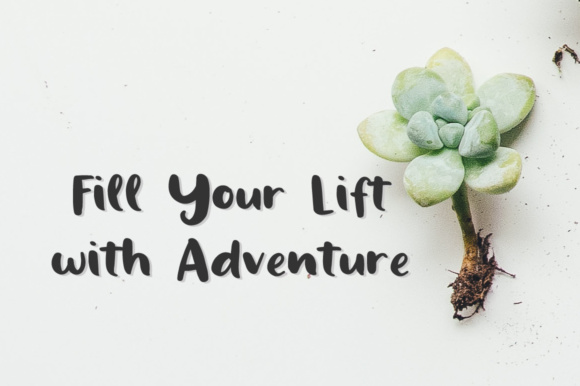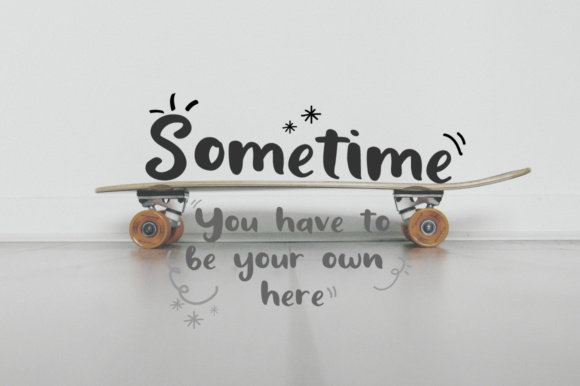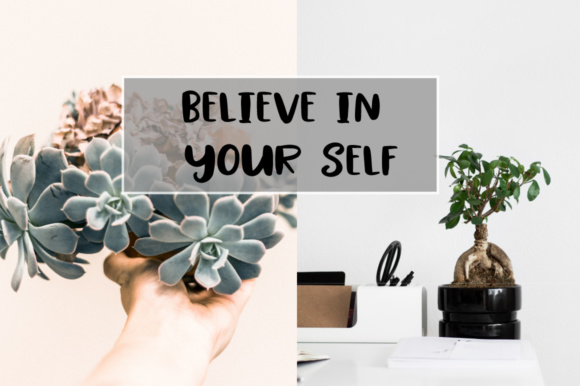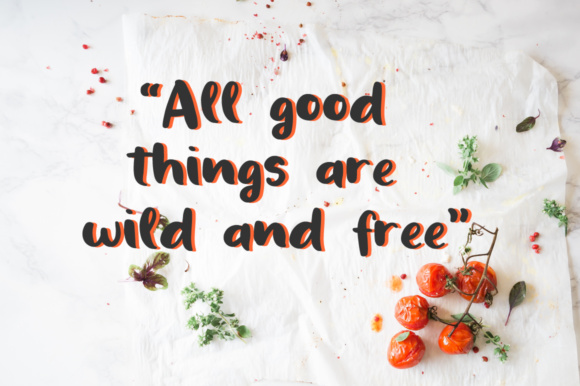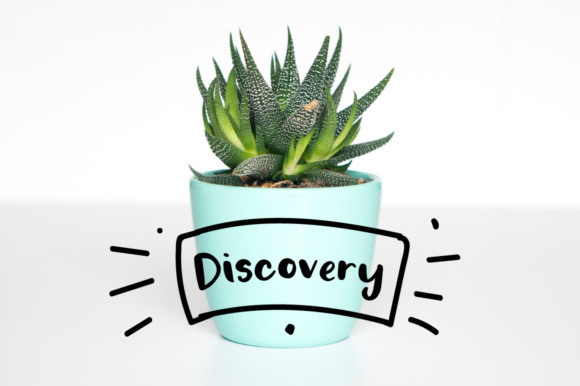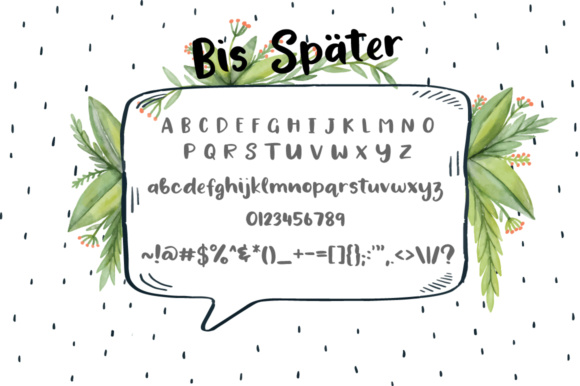
Bis Spater Font: Elevate Your Designs with a Bold, Striking Script
In the world of typography, fonts play a crucial role in making or breaking a design. The right font can elevate your project, making it stand out from the crowd, while a poorly chosen one can leave it languishing in obscurity. For designers and crafters looking for a bold, striking script font, the Bis Spater font is an excellent choice. In this article, we’ll explore what makes Bis Spater a top pick for your design projects.
What is Bis Spater Font?
The Bis Spater is a handwritten script font that exudes confidence and style. Its bold, fluid strokes make it perfect for designs that require a statement piece. Whether you’re working on a branding project, a wedding invitation, or a packaging design, Bis Spater is sure to make an impact.
Key Features of Bis Spater Font
- Handwritten Script: Bis Spater boasts a unique, handwritten script that adds a touch of personality to any design.
- Bold and Striking: The font’s bold strokes ensure that your text doesn’t go unnoticed, making it ideal for headlines, titles, and emphasis.
- Versatile: Bis Spater can be used across various design projects, from digital media to print materials.
- Easy to Read: Despite its bold nature, Bis Spater remains highly legible, ensuring your message is conveyed clearly.
Use Cases for Bis Spater Font
Bis Spater’s versatility means it can be applied to a wide range of design projects. Here are some use cases where Bis Spater truly shines:
- Branding and Logos: Create a memorable brand identity with Bis Spater. Its bold, script style can help your brand stand out.
- Wedding and Event Invitations: Add a touch of elegance and sophistication to your wedding or event invitations with Bis Spater.
- Packaging Design: Make your product packaging pop with Bis Spater. It’s perfect for labels, tags, and promotional materials.
- Social Media Graphics: Elevate your social media presence with eye-catching graphics featuring Bis Spater.
- Advertising and Marketing Materials: Use Bis Spater in your ads, flyers, and brochures to grab attention and convey your message effectively.
Tips for Using Bis Spater Font Effectively
To get the most out of Bis Spater, consider the following tips:
- Pair with Simple Fonts: Balance Bis Spater’s boldness by pairing it with simpler fonts for body text or secondary information.
- Adjust Letter Spacing: For better readability, adjust the letter spacing according to your design’s requirements.
- Use in Moderation: While Bis Spater is striking, using it in moderation ensures it remains impactful. Overuse can dilute its effectiveness.
Bis Spater font is a powerful tool for designers and crafters looking to add a bold, striking script to their projects. Its unique, handwritten style, combined with its versatility and readability, makes it an excellent choice for a wide range of design applications. Whether you’re creating branding materials, event invitations, or packaging designs, Bis Spater is sure to elevate your work. So, why settle for ordinary when you can make a statement with Bis Spater?